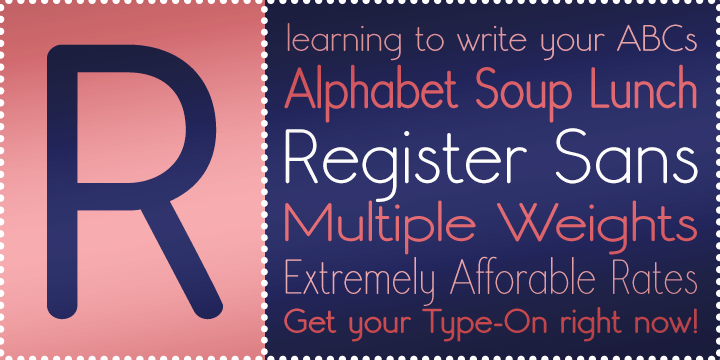
Register Sans BTN
Register Sans is a typestyle family inspired by the draft-letter handwriting samples from old Speedball booklets, with a little variation for a more friendly flair. Reminiscent of the basic lettering templates from elementary school days, this friendly,…